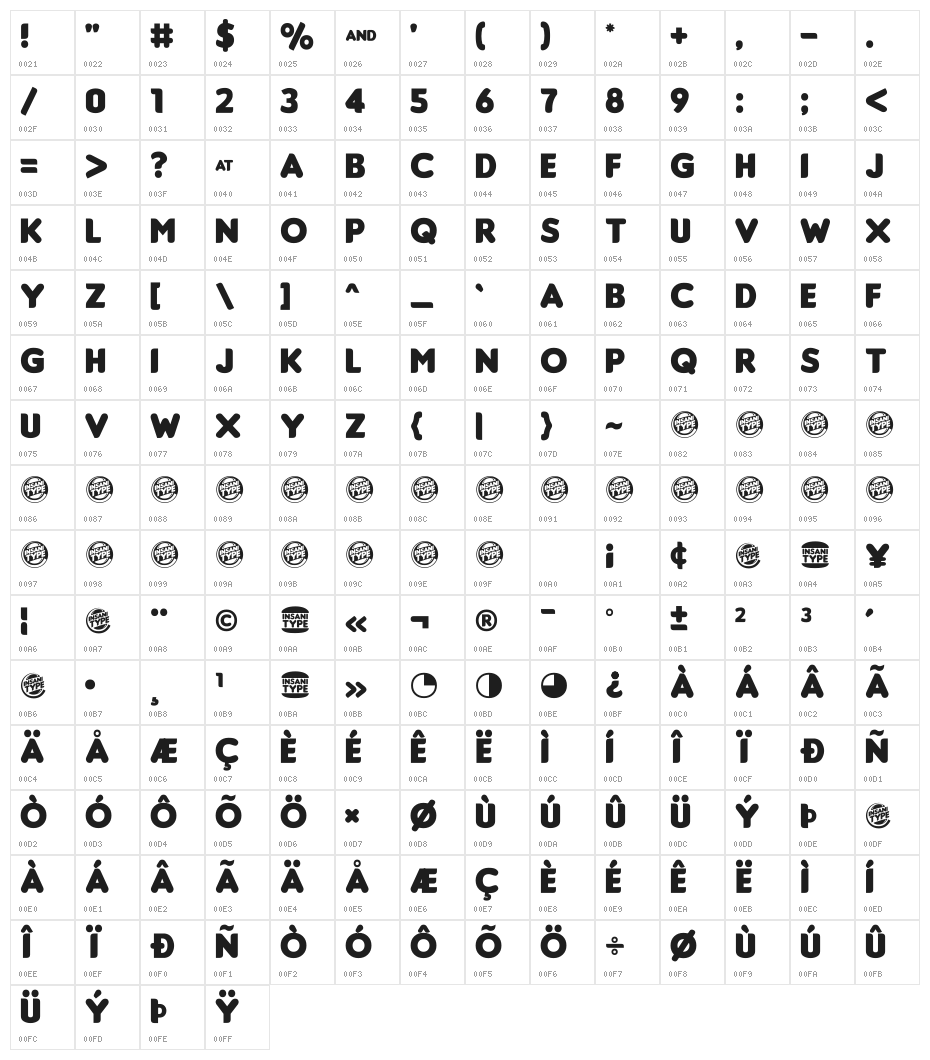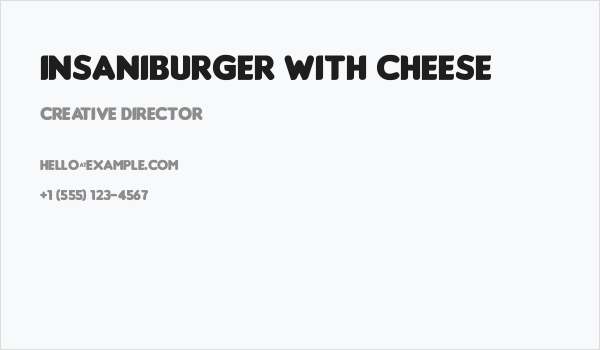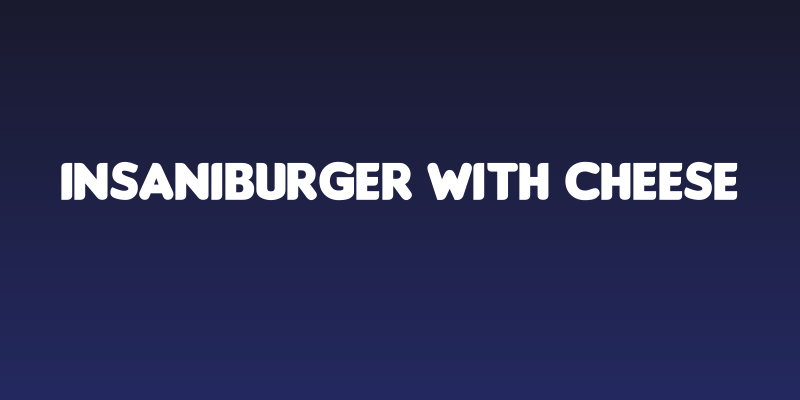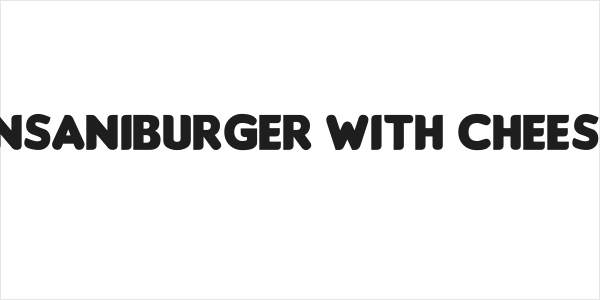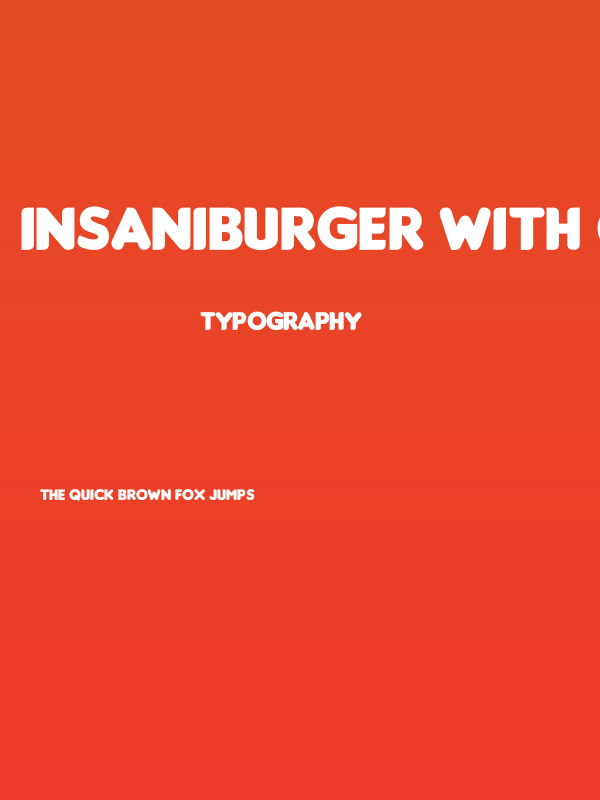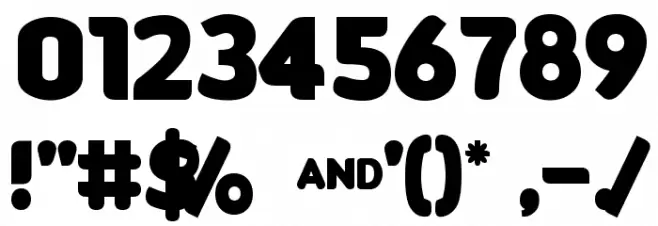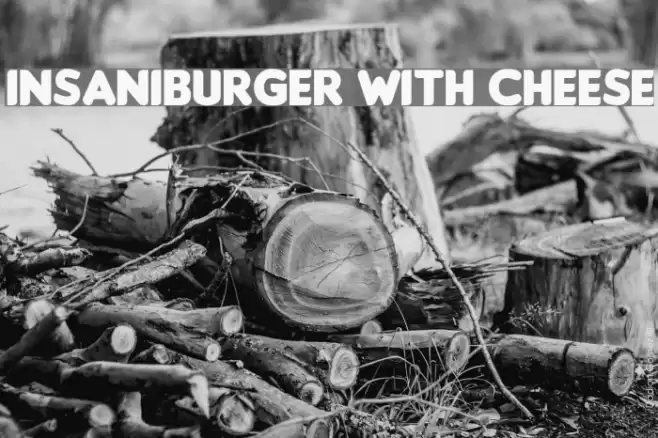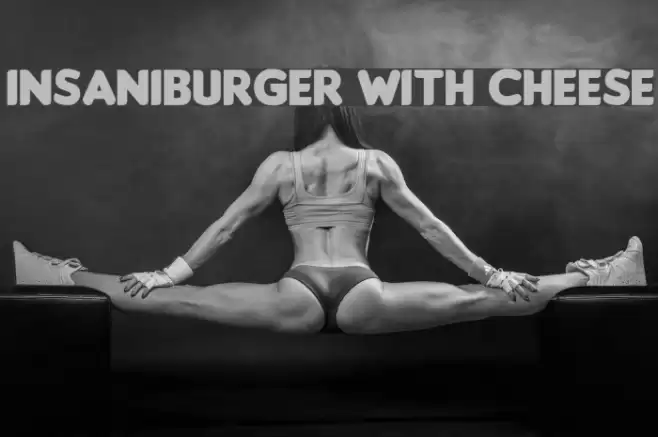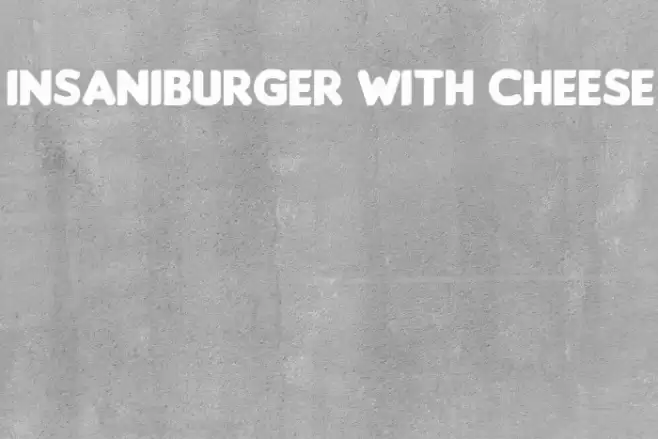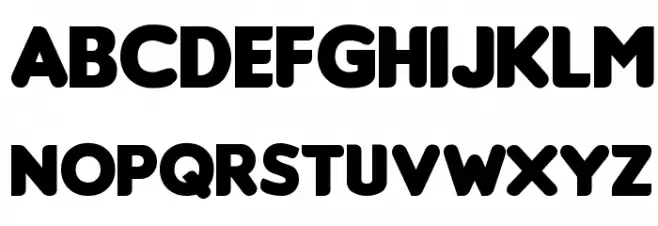
Insaniburger with Cheese Font
Insaniburger with Cheese Description
This font features bold, rounded characters that convey a playful and friendly vibe. The letters are uniformly thick, with a consistent stroke width that gives a sense of stability and strength. The rounded edges soften the overall appearance, making it approachable and suitable for casual or fun contexts. The numerals and special characters maintain the same boldness and rounded style, ensuring consistency across all elements. This font is highly legible and stands out due to its substantial weight and unique character shapes.
| Overall Style | Playful |
| Proposed Projects | Ideal for branding, packaging, children's books, and playful advertising campaigns. |